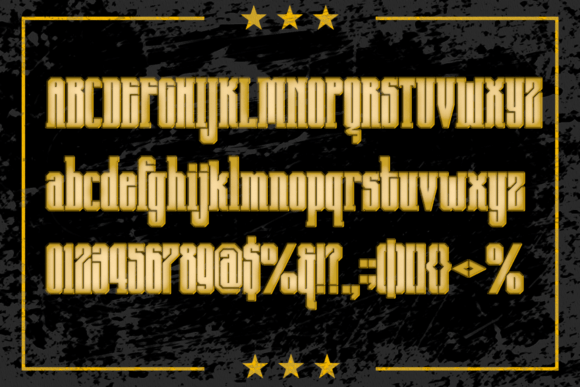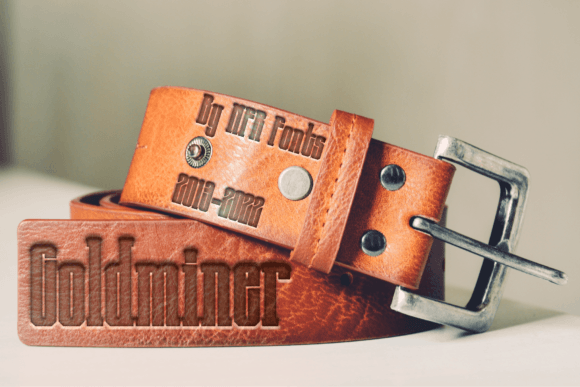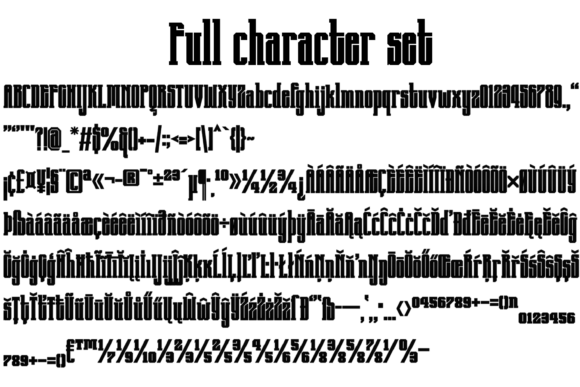
Goldminer Font: A Bold and Rugged Typeface Inspired by the Wild West
Are you looking for a font that embodies the spirit of the American West? Do you want to add a touch of ruggedness and adventure to your designs? Look no further than the Goldminer font, a strong, extra-thick, and extra-bold typeface that takes inspiration from the 1849 Gold Rush and the Old West era.
The Inspiration Behind Goldminer Font
The Goldminer font is influenced by the blocky letters of metal type, wood type, and hand-painted letters and signs from the 19th century. During this time, the American West was undergoing a period of rapid transformation, as prospectors, cowboys, and outlaws roamed the open ranges. The font’s designer sought to capture the essence of this era, with its bold, rugged, and uncompromising letterforms.
Key Features of Goldminer Font
So, what makes the Goldminer font so special? Here are a few key features that set it apart:
- Extra-thick and extra-bold: The Goldminer font is designed to make a statement, with letters that are thick, bold, and attention-grabbing.
- Blocky letters: Inspired by metal type, wood type, and hand-painted letters, the Goldminer font features blocky letters with a rugged, handmade feel.
- Western-style aesthetic: The font’s design is deeply rooted in the aesthetics of the American West, making it perfect for designs that require a touch of ruggedness and adventure.
- Versatile: While the Goldminer font really shines at large sizes, it can also be used effectively at smaller scales, making it a versatile addition to any designer’s toolkit.
Uses for Goldminer Font
So, what can you use the Goldminer font for? The possibilities are endless, but here are a few ideas to get you started:
- Western-themed designs: The Goldminer font is perfect for designs that require a touch of the Wild West, such as posters, logos, and packaging for western-themed products.
- Headings and titles: The font’s bold, attention-grabbing letterforms make it ideal for headings and titles, where you want to make a statement.
- Signage and advertising: The Goldminer font’s rugged, handmade feel makes it perfect for signage and advertising, where you want to grab people’s attention and convey a sense of authenticity.
- Branding and logos: The font’s unique aesthetic makes it a great choice for branding and logos, where you want to stand out from the crowd and convey a sense of rugged individualism.
Tips for Using Goldminer Font
Here are a few tips for getting the most out of the Goldminer font:
- Use it sparingly: The Goldminer font is designed to make a statement, so use it sparingly to avoid overwhelming your design.
- Experiment with colors: The font’s rugged, handmade feel lends itself well to bold, vibrant colors, so don’t be afraid to experiment and find the perfect combination for your design.
- Pair it with contrasting fonts: The Goldminer font’s bold, attention-grabbing letterforms make it perfect for pairing with contrasting fonts, such as elegant serif fonts or clean sans serifs.
In conclusion, the Goldminer font is a bold, rugged, and attention-grabbing typeface that is perfect for designers and crafters looking to add a touch of the Wild West to their designs. With its extra-thick and extra-bold letterforms, blocky letters, and western-style aesthetic, this font is sure to make a statement. Whether you’re designing a western-themed poster, a logo, or a sign, the Goldminer font is a versatile and effective choice.